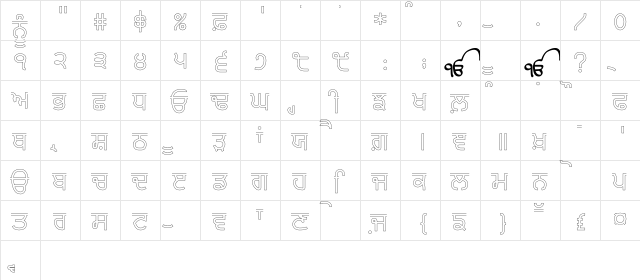
Bulara Thin Border Outline Thin_Border_Outline Font Preview
Bulara Thin Border Outline Thin_Border_Outline
Bulara Thin Border Outline Thin_Border_Outline Font Details
| Style | Thin_Border_Outline |
| Foundry | Paul Alan Grosse |
| Designer | Paul Alan Grosse |
Design Context for Bulara Thin Border Outline Typeface
Bulara Thin Border Outline is built around its visual character rather than neutral utility — its distinctive forms are designed to make an impression at display sizes. Its slender proportions lend an understated elegance to any composition.